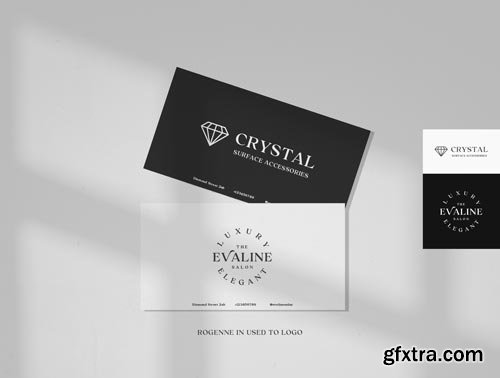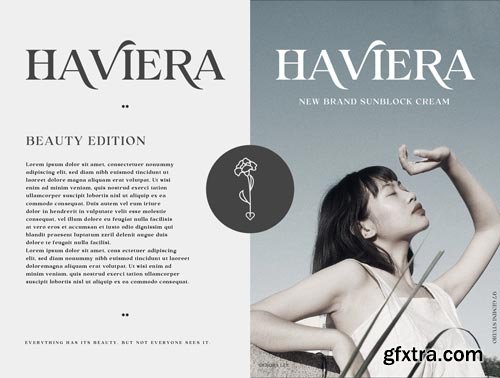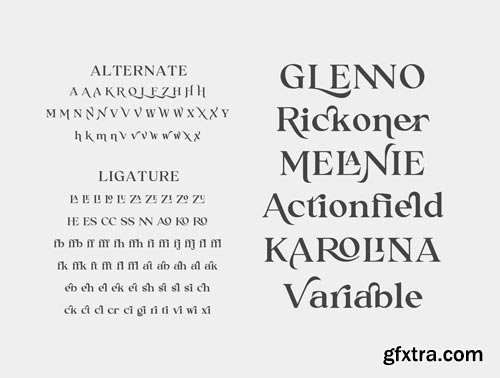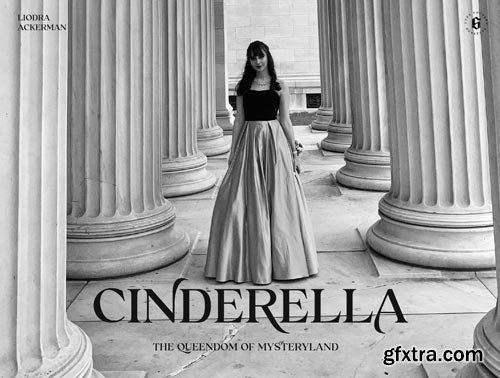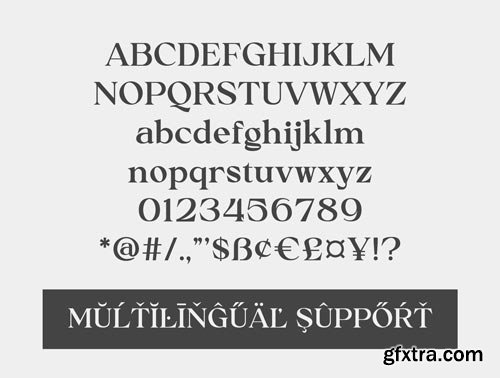
Rogenne is a display serif font. Rogenne font also have elegant touch in every single character there make look more classy and luxury. This font has alternate and ligature features which are good for stylizing your text for completing various projects such as banners, brochure, logos, products, labels, websites, posters, brands and many more.